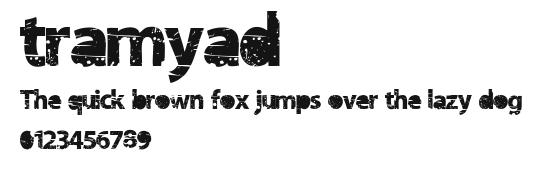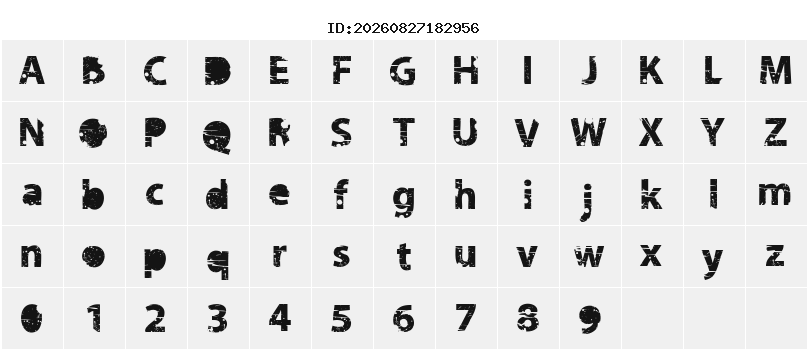
tramyad Preview
• Font Name: tramyad
• Font Style: Semi-expanded Bold
• Font ID: loosydesign(fabianpfeifhofer): tramyad Semi-expanded Bold: 2007
• Full Font Name: tramyad Semi-expanded Bold
• Version: Version 1.000 2007 initial release
• PostScript Name: tramyad-Semi-expandedBold
• Designer: loosydesign (fabian pfeifhofer)
• Manufacturer: loosydesign (fabian pfeifhofer)
About tramyad.ttf
tramyad.ttf is a modern, elegant sans-serif font designed for ultimate readability and visual harmony. Perfect for branding, headlines, web design, and print materials.